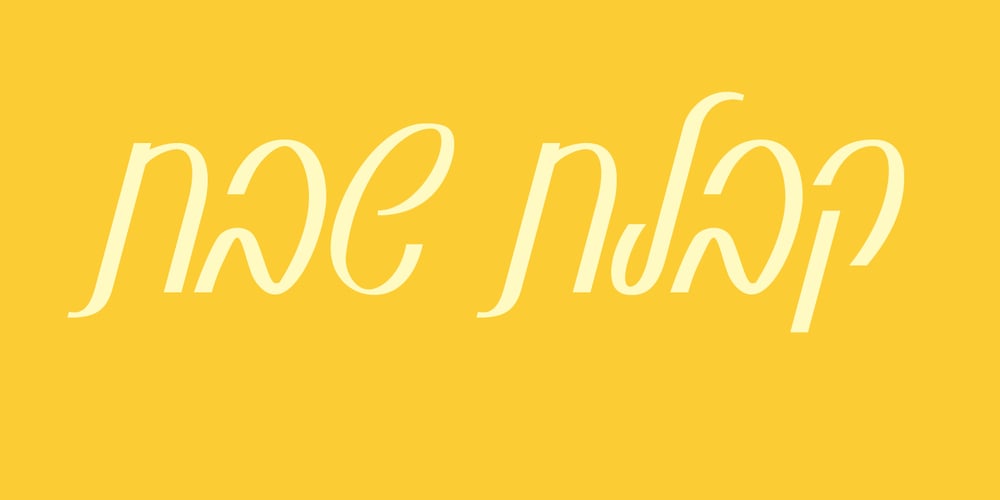
Autograph Font Family was designed by Zvika Rosenberg and published by Masterfont. Autograph contains 2 styles and family package options. This calligraphic scribble follows the traditional Hebrew type by intensive and elegant hand drawn lines.